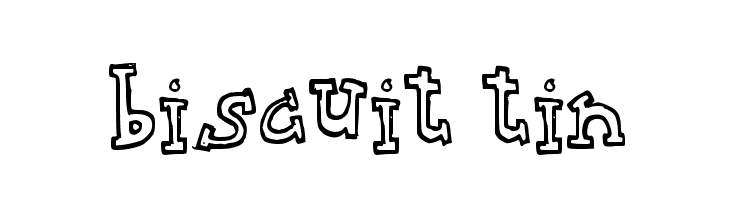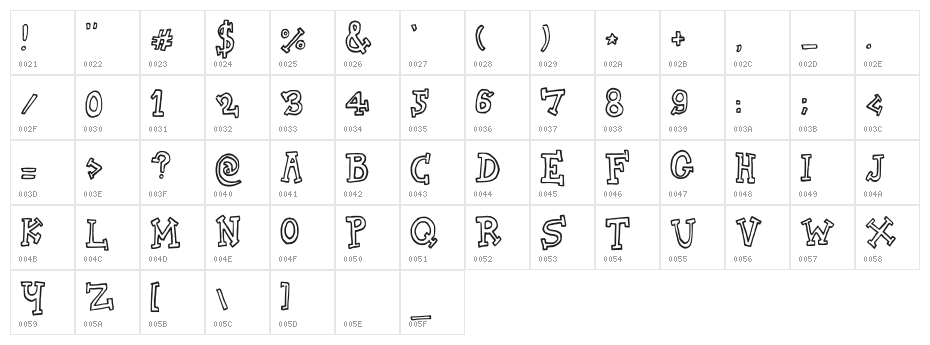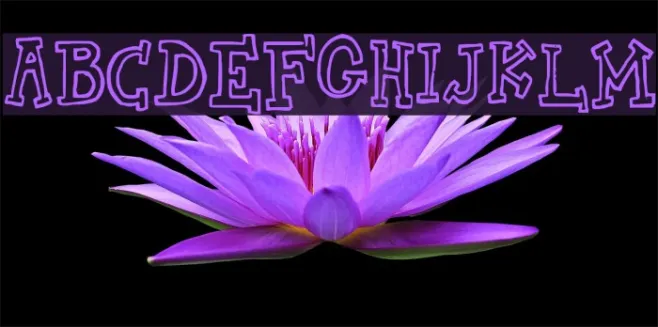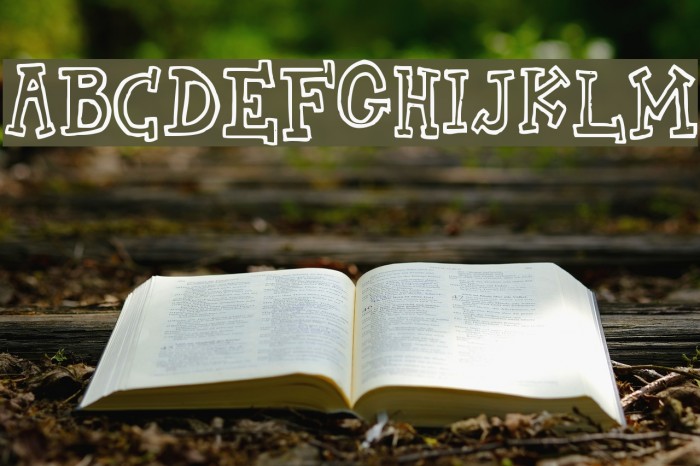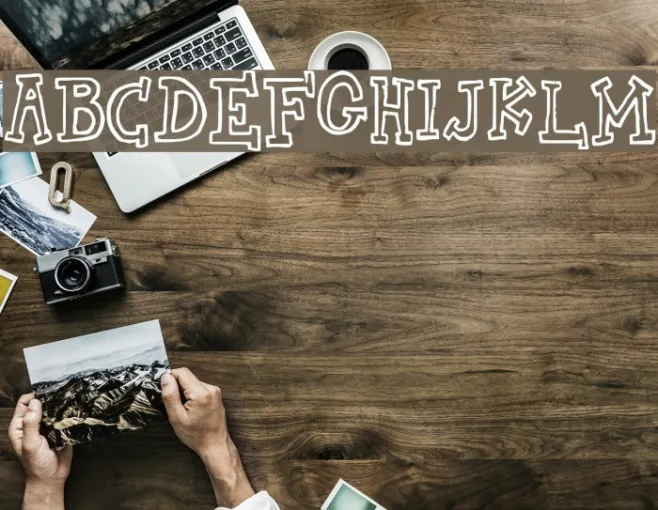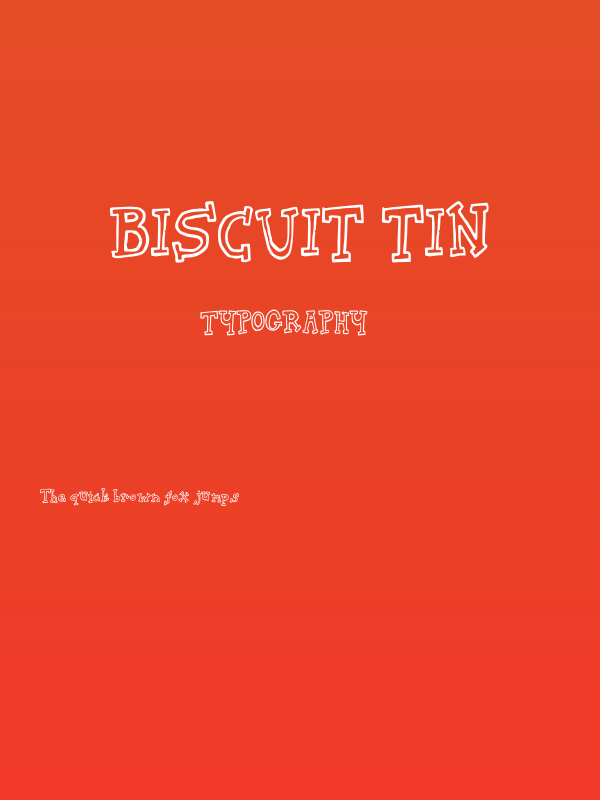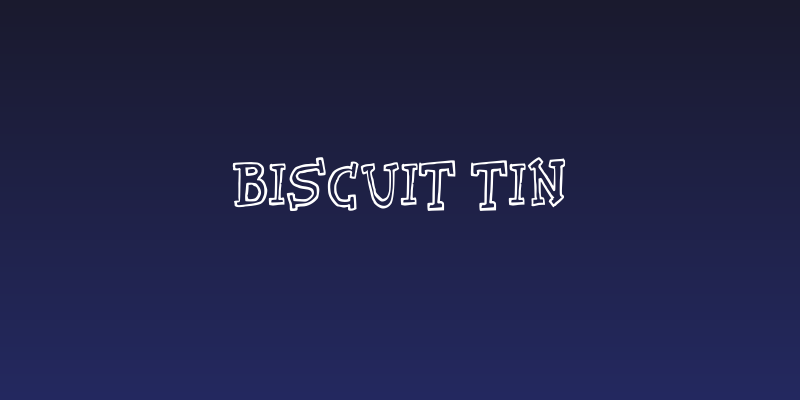
biscuit tin Font
biscuit tin Description
This playful and whimsical font features a hand-drawn, cartoonish style with bold outlines and irregular shapes. Each character has a unique, quirky appearance, giving the font a lively and energetic feel. The uppercase and lowercase letters maintain a consistent style, with exaggerated serifs and uneven lines that add to its charm. Numbers and special characters follow the same design, ensuring a cohesive look across all text. The font's informal and fun nature makes it ideal for creative projects that require a touch of personality and humor.
| Proposed Projects | Ideal for children's books, comic strips, playful branding, and creative posters. |